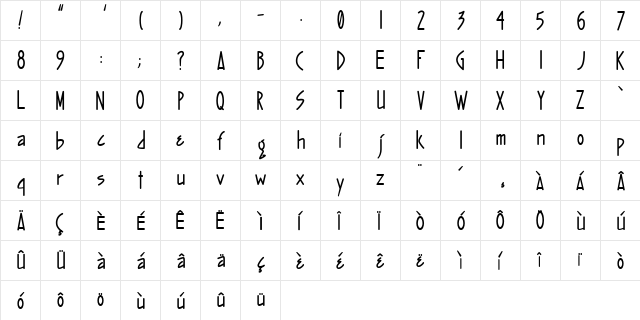
LunaMartino Regular
Design Context for LunaMartino Typeface
LunaMartino is a composed and adaptable typeface that performs quietly and consistently across a wide range of design contexts.